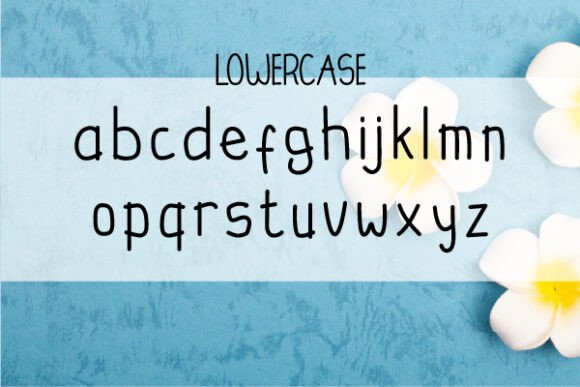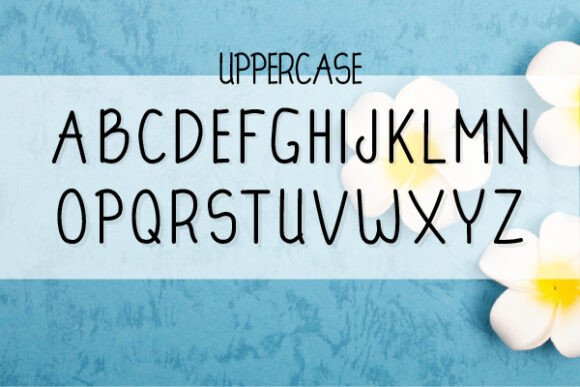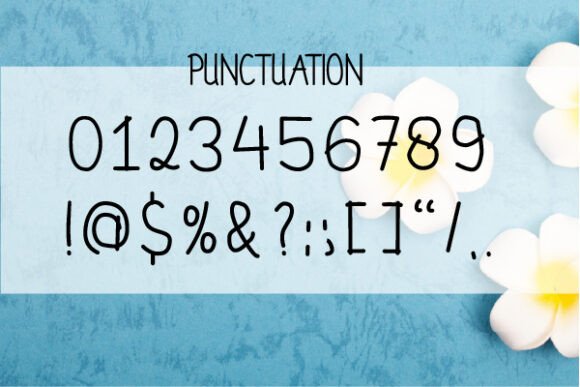
Introduction to Playful Cartoon Font
Playful Cartoon is designed in an enjoyable handwritten sans serif font style.
Let’s try it for your projects, such as presentations, back-to-school, party decorations, posters, blogs, and social media posts Add it now to your fonts library, and it will bring any of your DIY projects to life.
Key Features of Playful Cartoon Font